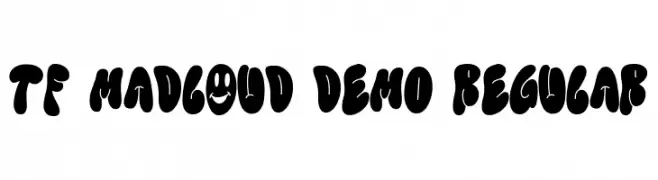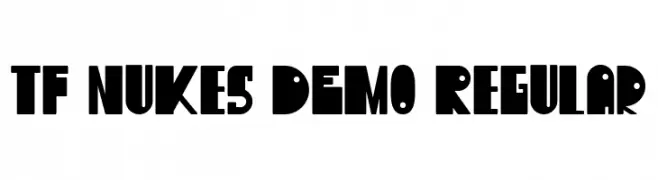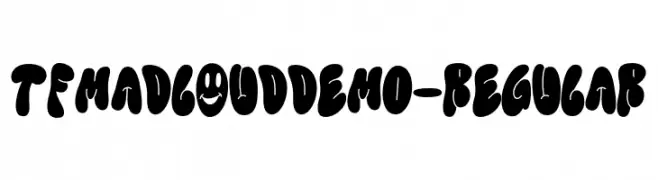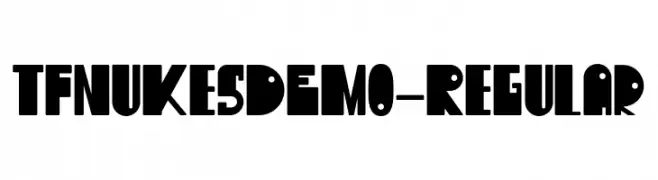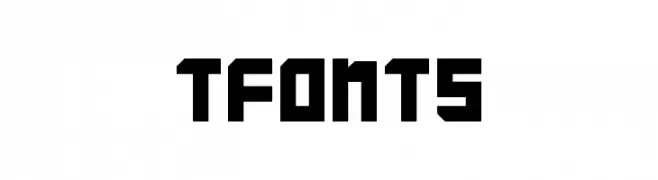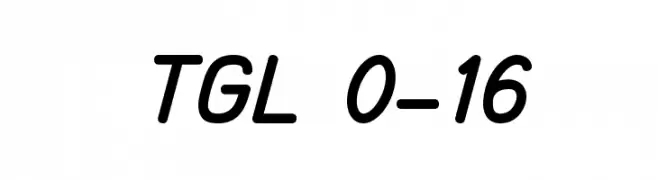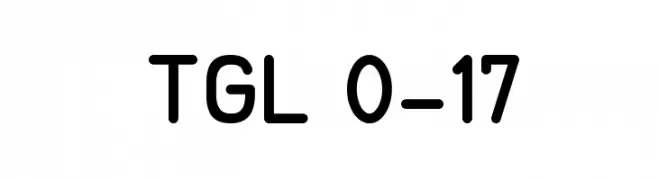
A bold, distressed font with a textured, weathered appearance.
A bold, playful font with rounded, cartoonish characters.
A bold, geometric font with dynamic shapes and strong visual impact.
A bold, playful font with rounded, bubbly characters.
A bold, geometric font with a modern and futuristic style.
A modern, italicized sans-serif font with smooth curves and consistent stroke width.
A modern, rounded sans-serif font with excellent readability and a friendly appearance.